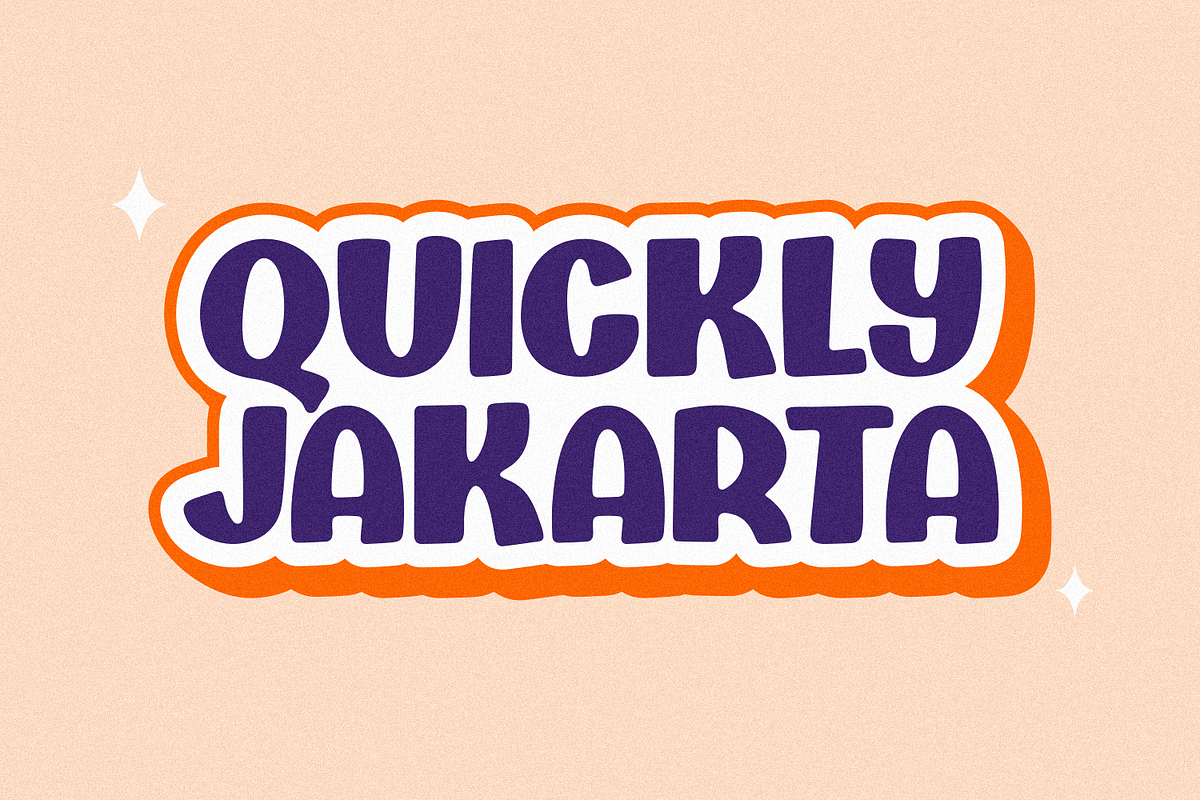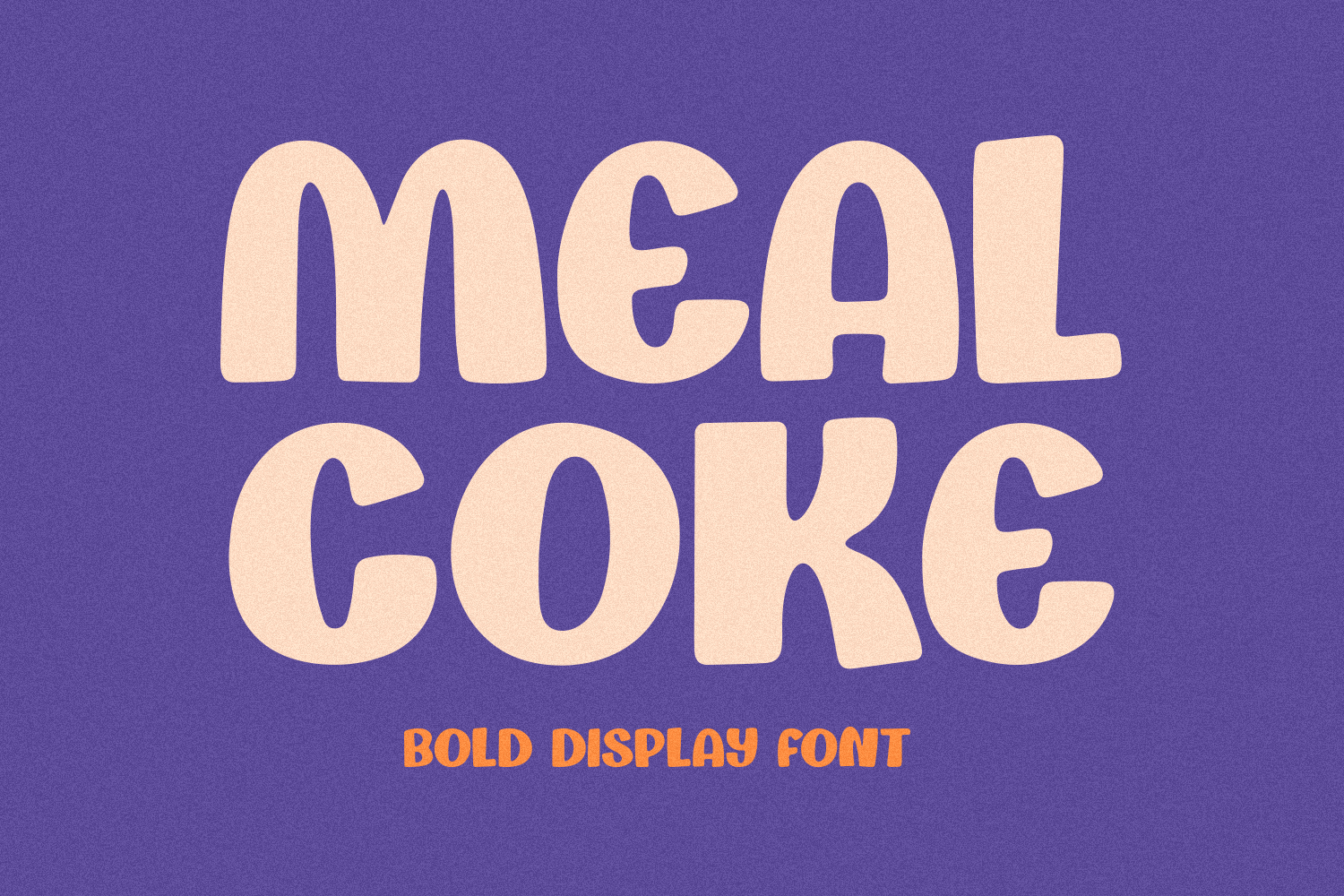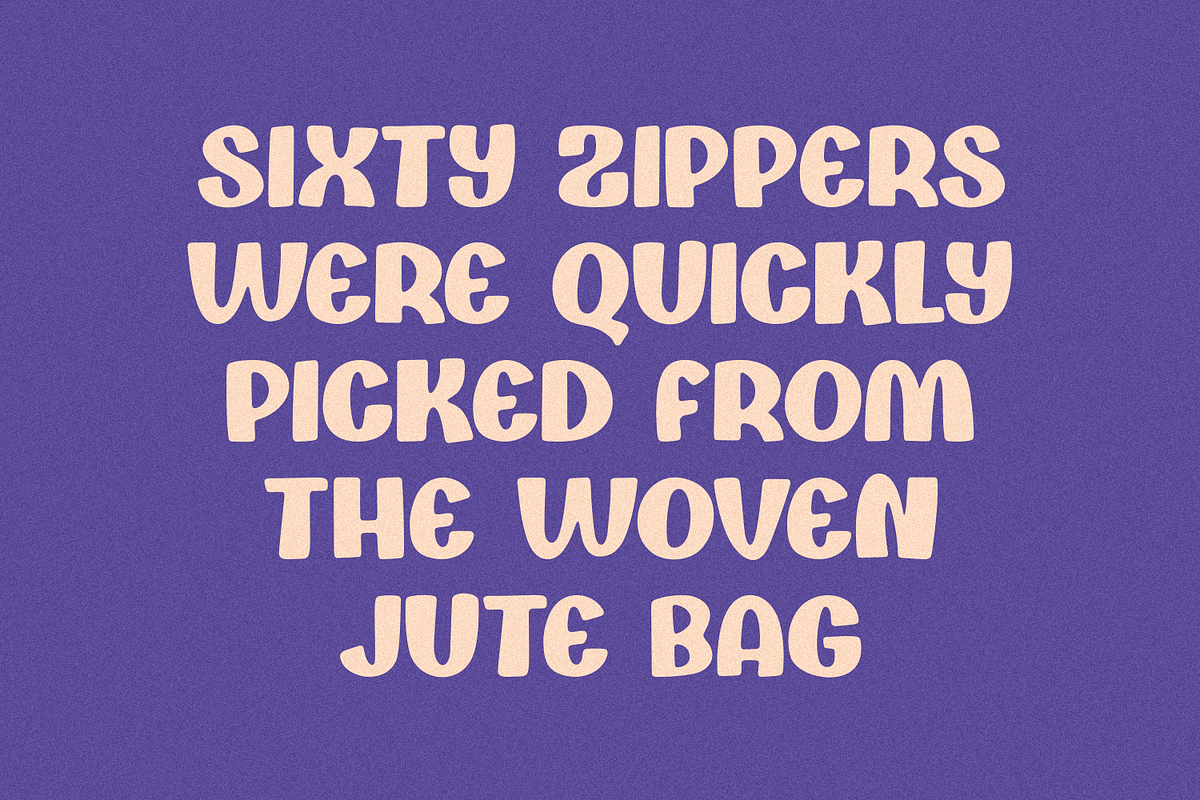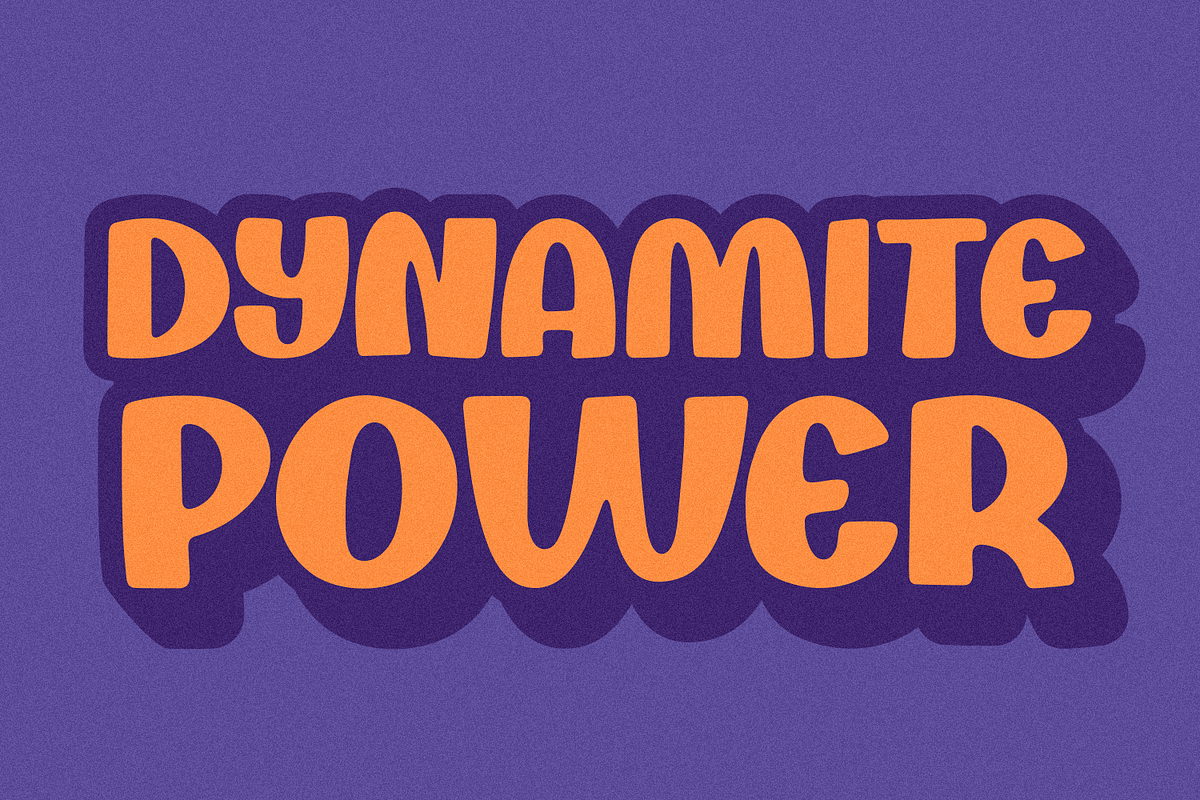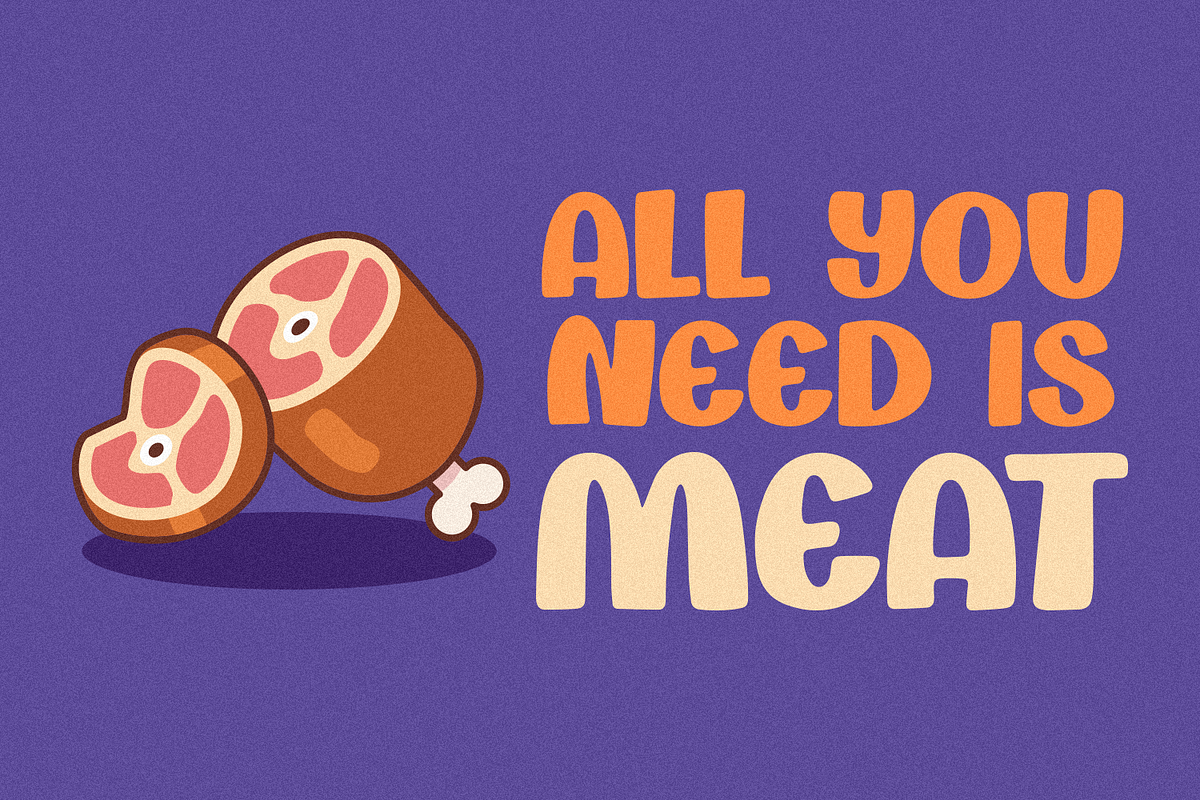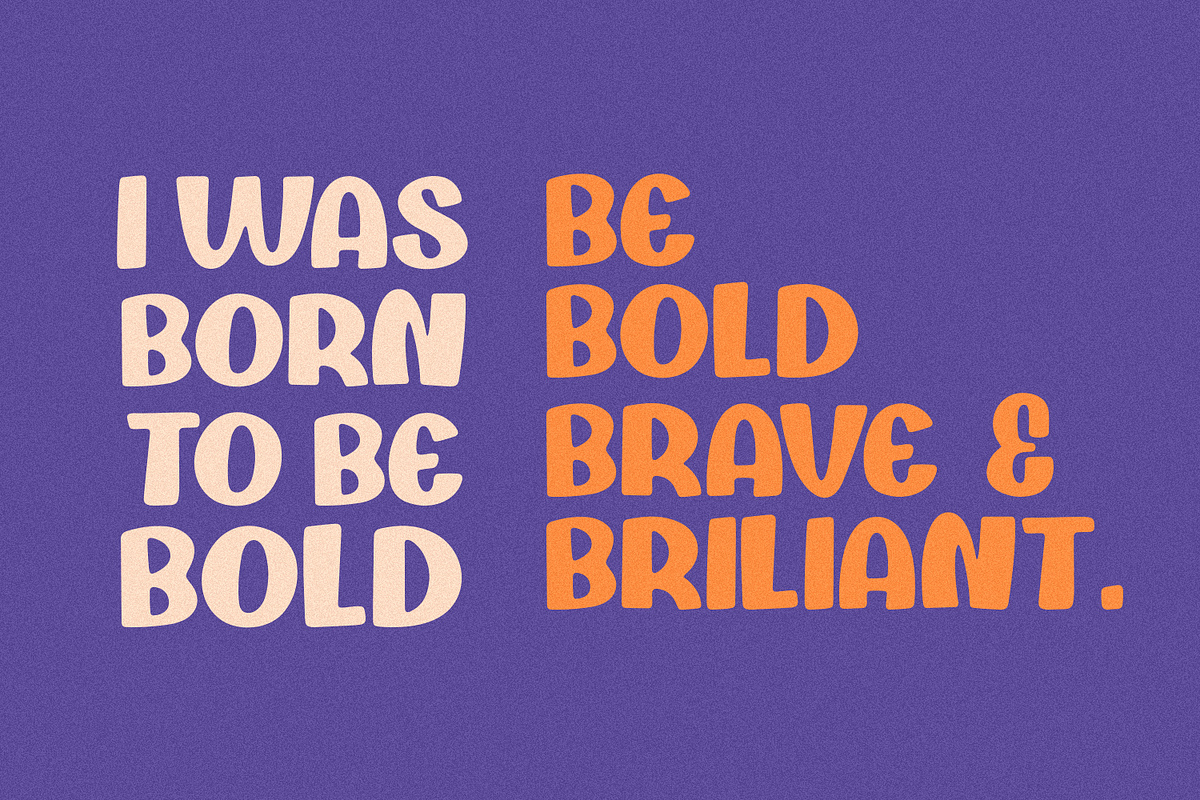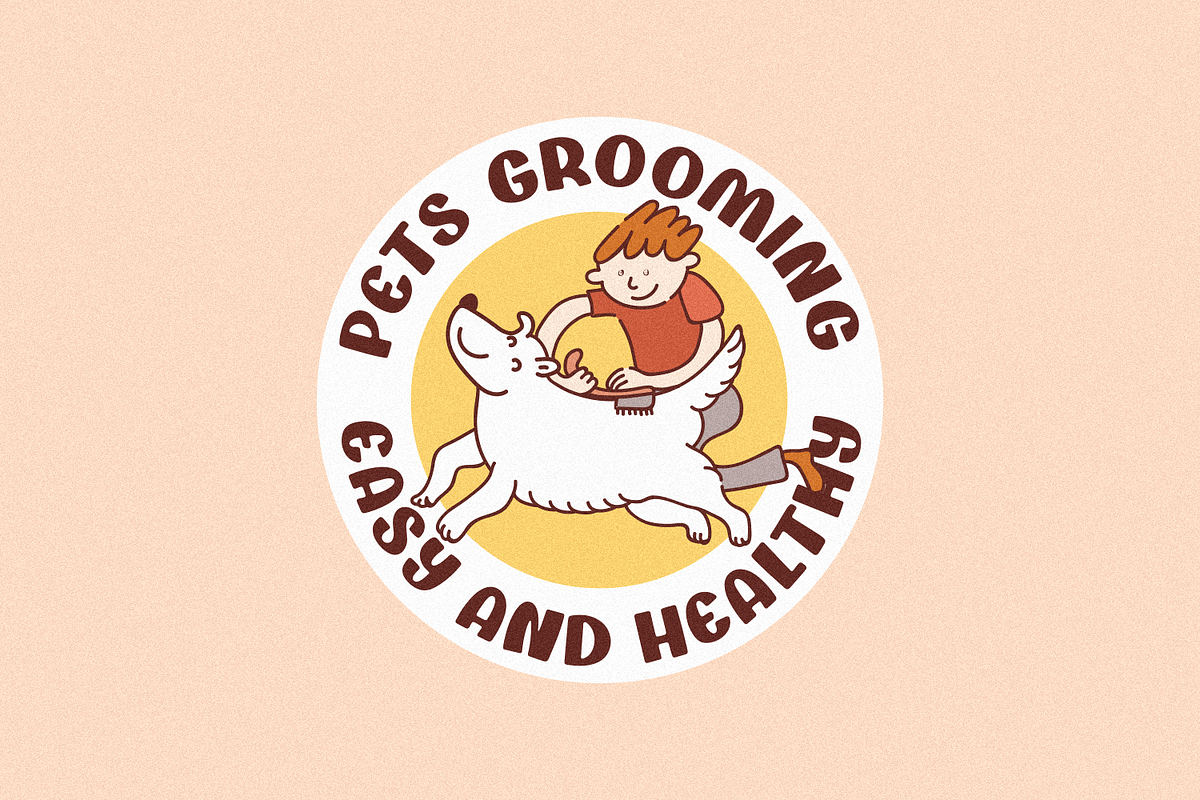
Meal Coke Font
Meal Coke is a Handwritten Script font that will make your designs look classic, Farmhouse, Boho, and Feminine. It is a great font for events, Wedding Project, signature, album covers, logos, branding, magazines, social media posts, advertisements, but it also works great for other projects. Add it to your fonts’ library, and it will enhance your creativity!
Meal Coke is best for:
- logos, branding, & Signatures.
- Flyers, Album cover, Magazine, & Advertisements.
- Website design , design blogs, & fashion.
- Quote graphics for social media. - and also it works great for other projects.